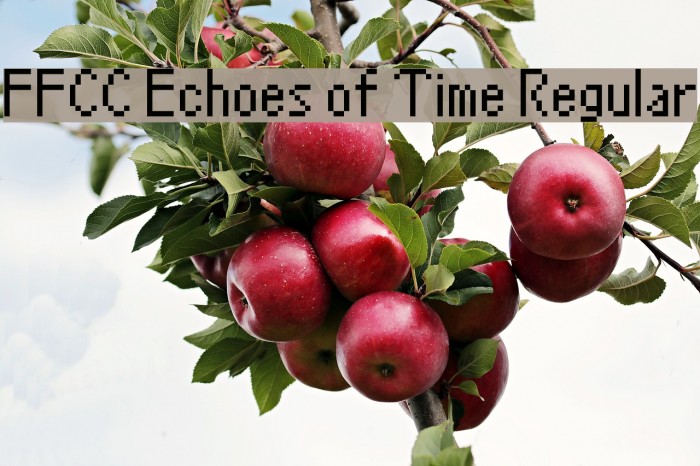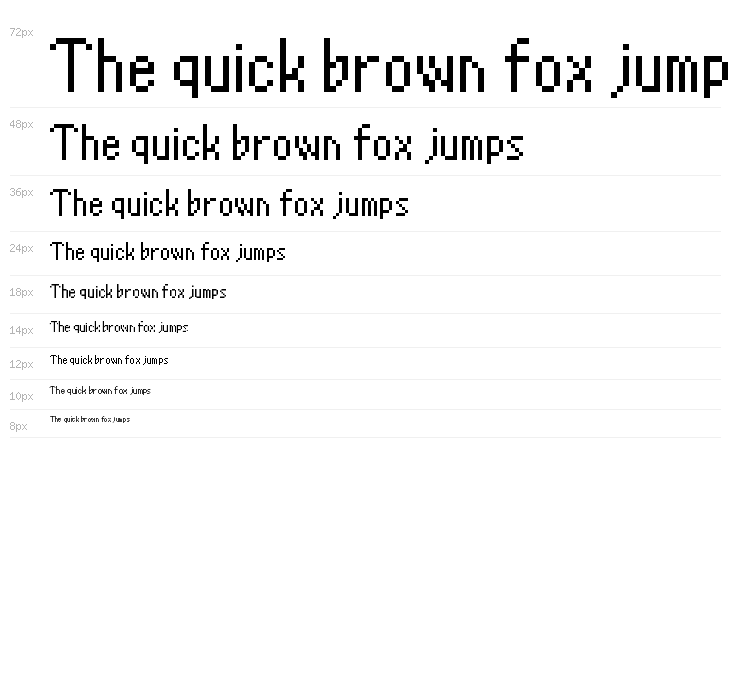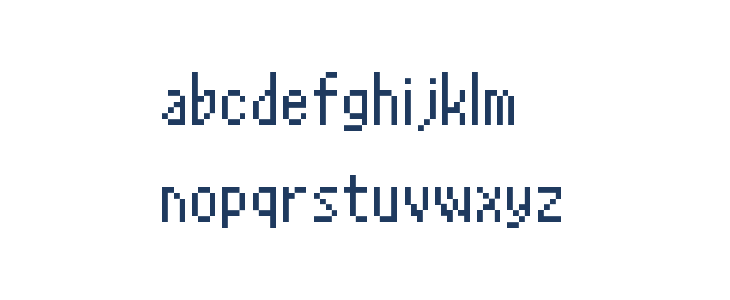
FFCC Echoes of Time Regular Font
FFCC Echoes of Time Regular Description
This font features a distinct pixelated style reminiscent of early digital displays and retro video games. Each character is constructed with a grid-like precision, giving it a blocky and geometric appearance. The uppercase and lowercase letters maintain a consistent height, enhancing readability while preserving the nostalgic aesthetic. Numbers and special characters follow the same design principles, ensuring uniformity across all glyphs. The font's simplicity and clarity make it ideal for projects that aim to evoke a sense of nostalgia or a retro-futuristic vibe. Its straightforward design is both functional and visually striking, making it suitable for a variety of creative applications.
| Overall Style | Retro, Digital |
| Use Case | Headlines, Logos, Digital Art |
| Proposed Projects | Ideal for retro video game graphics, digital art projects, and nostalgic branding. |